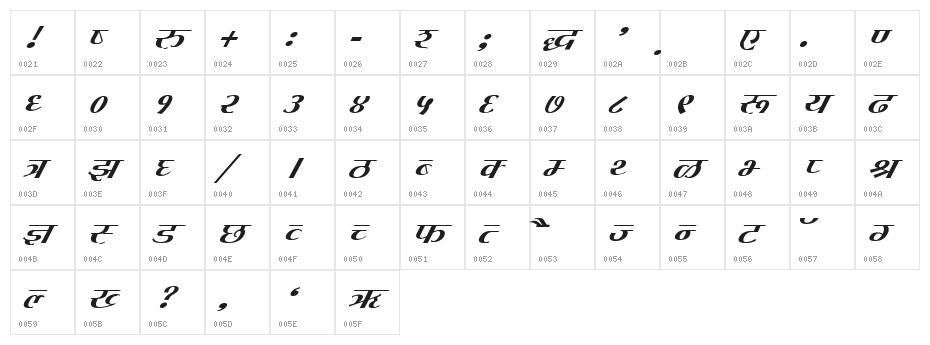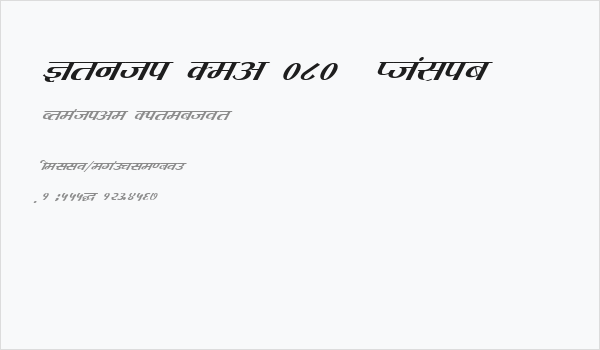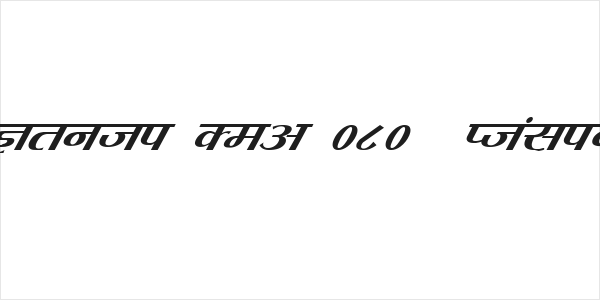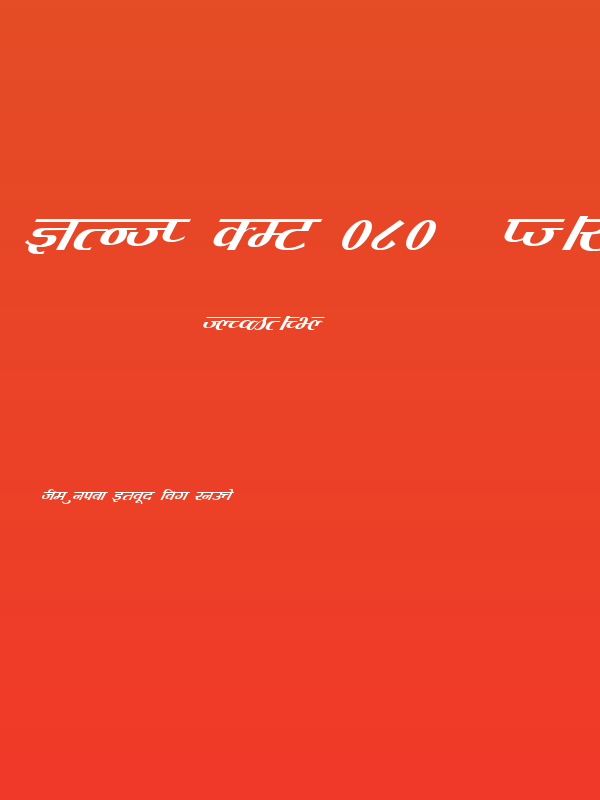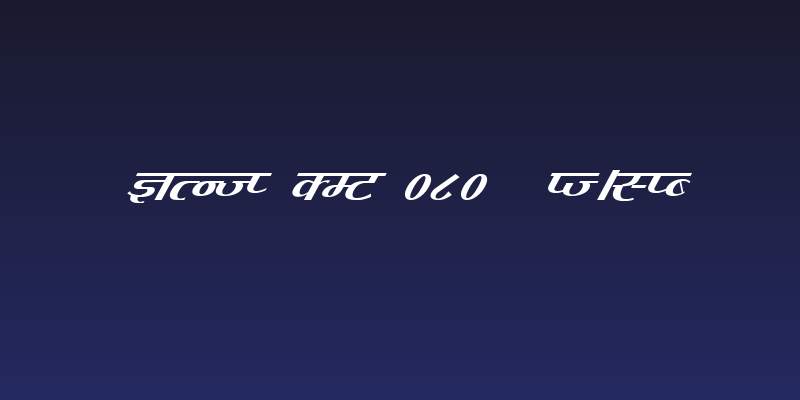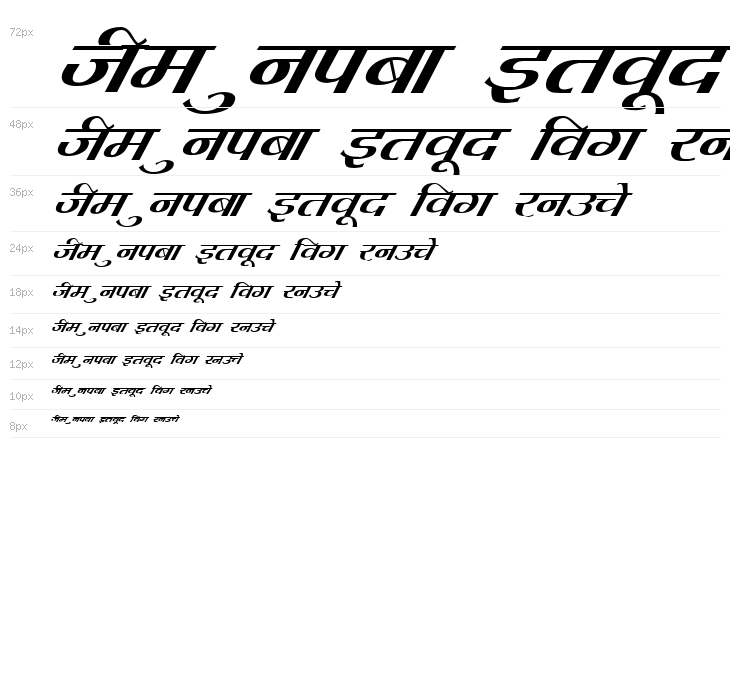
Kruti Dev 080 Italic Font
Kruti Dev 080 Italic Description
This font features a distinctive italic style with a strong emphasis on fluidity and elegance. The characters are designed with a slanted orientation, giving them a dynamic appearance. The strokes are smooth and consistent, with a moderate contrast between thick and thin lines, enhancing readability while maintaining a stylish look. The font includes a full set of Devanagari characters, numerals, and a variety of punctuation marks, making it versatile for different types of content. Its unique design is well-suited for projects that require a touch of sophistication and cultural flair.
| Use Case | Headlines, Artistic projects, Cultural content |
| Proposed Projects | Ideal for cultural publications, artistic projects, invitations, and decorative headings. |